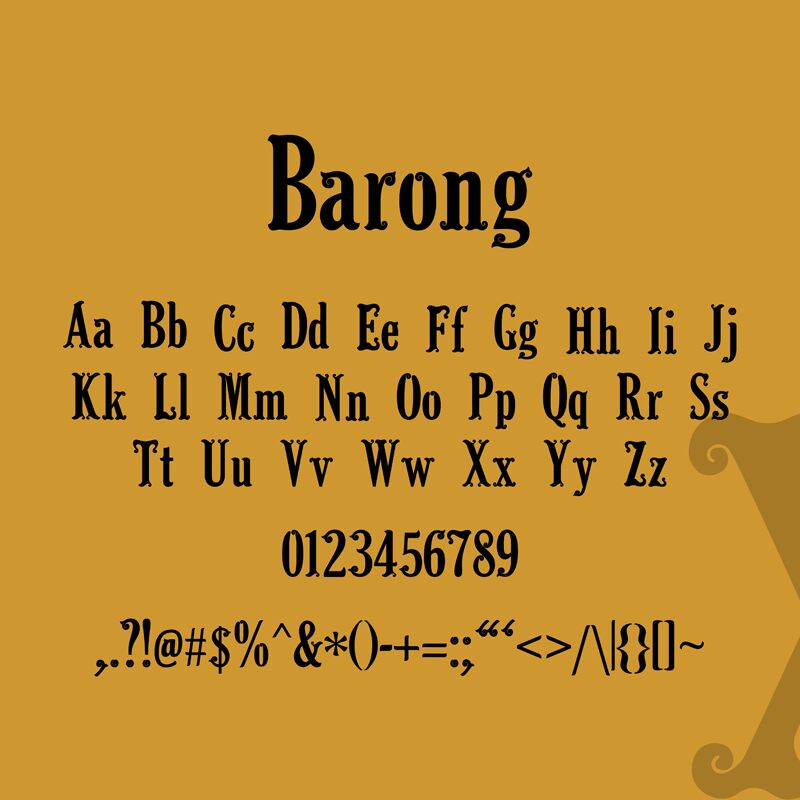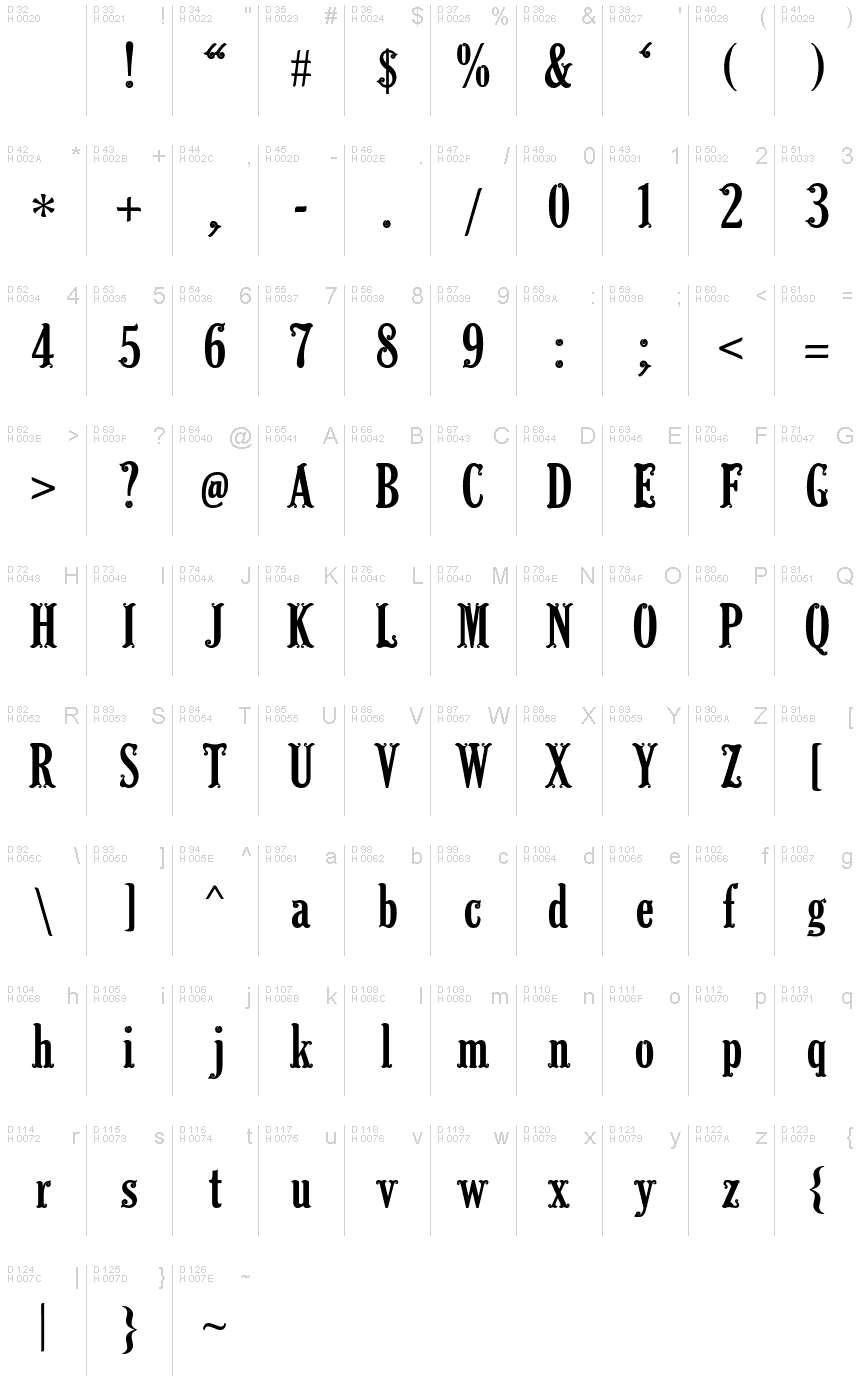
Barong
A font inspired by Barong, one of Indonesia's art and dance. Barong is an embodiment of the devil and shaped like an animal. This lovely vintage typeface was designed by Lunetta Sean.